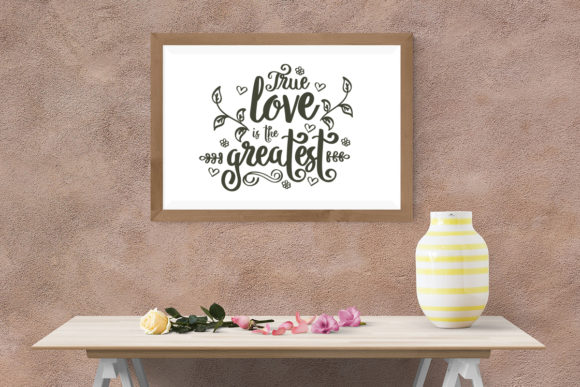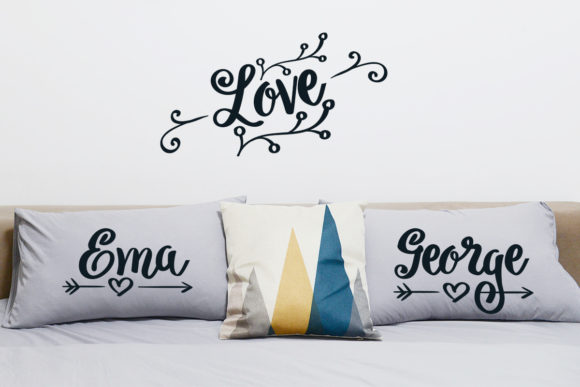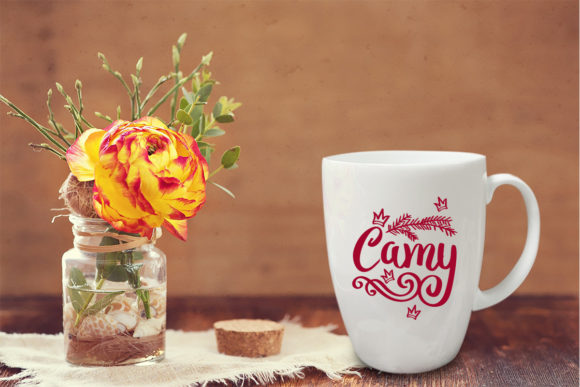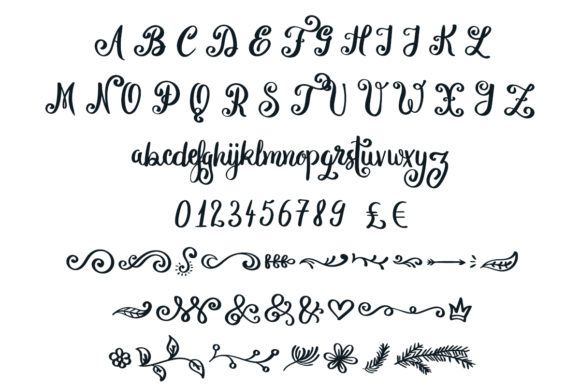
Lovely Font
About Lovely Font
Introducing “The Lovely,” a modern cursive font designed for the creative spirits out there. This font goes beyond mere letters; it’s a complete toolkit that adds a beautiful, organic feeling to your designs, making it perfect for quotes, social media, print and crafts, whimsical collages, e-newsletters, web banners, and more.
“The Lovely” is crafted with a handwritten touch, bringing a sense of authenticity and creativity to your projects. Its cursive style is well-suited for those who love to infuse their designs with a personal and whimsical flair.
What sets “The Lovely” apart is its extras – the additional swirls and floral elements that come with the font. These extras provide you with all the creative pieces you need to enhance your designs and create something truly wonderful. By incorporating these elements, you can transform your projects into captivating visual experiences.
Whether you’re creating quotes for social media, engaging print and crafts, whimsical collages, or dynamic web banners, “The Lovely” offers the versatility to make your designs stand out. Its handwritten charm adds warmth and character to your text, while the extras provide the opportunity for creative exploration and customization.
In summary, “The Lovely” is more than just a font; it’s a design toolkit that empowers your creativity. Embrace its modern cursive style for various design projects, and let the extras elevate your creations with swirls and floral elements. With “The Lovely,” you have the tools to craft something wonderful and uniquely yours.